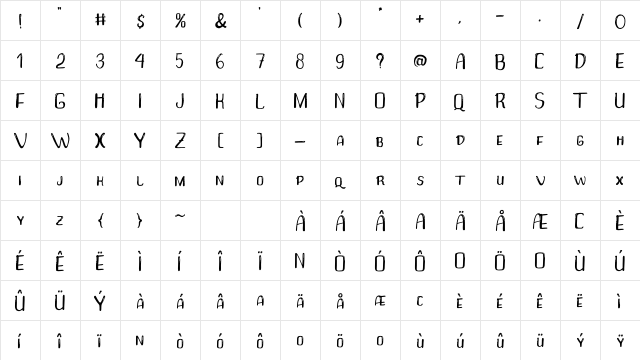
Little Funny Regular
Design Context for Little Funny Typeface
Little Funny has an approachable, lighthearted character — its loose, expressive forms are well-suited to children's content, casual branding, and fun-first design.
Font Pairing: Pairs well with a rounded or humanist sans for body copy, maintaining the friendly tone without relying on Little Funny to carry extended reading.
Pro Tip: Use Little Funny at larger display sizes where its expressive character can land. Pair with a clean, simple sans for body copy to maintain readability.